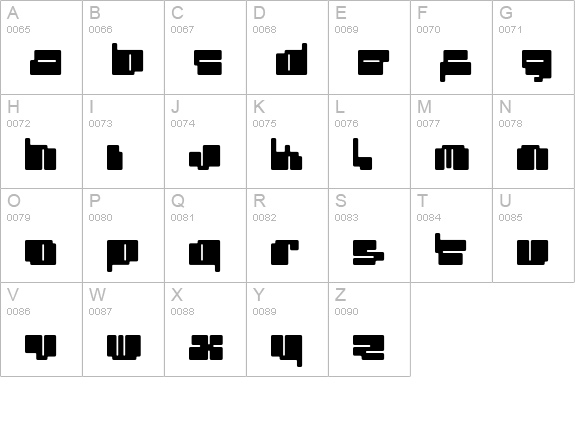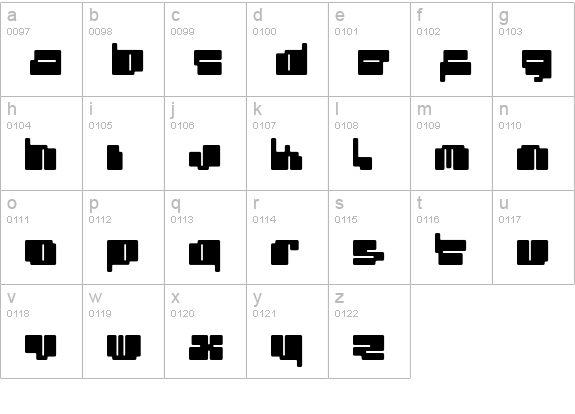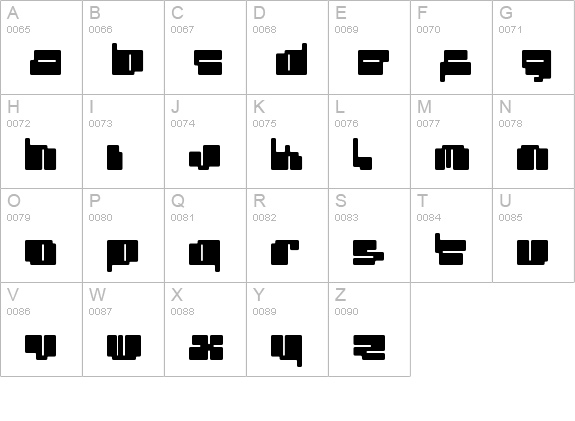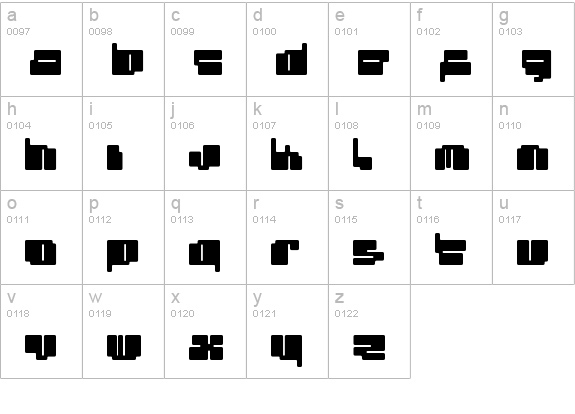
cheaptype Font Details
Introducing CheapType Font, a sleek and modern typeface that is perfect for all your design needs. This versatile font features clean lines and a contemporary style that will make your projects stand out. Whether you are creating posters, logos, or branding materials, CheapType Font is sure to impress. Best of all, CheapType Font is completely free to download at FontsMarket.com. Yes, you read that right - this high-quality font is available for free, making it accessible to everyone looking to elevate their designs without breaking the bank. Don't miss out on the opportunity to enhance your creative projects with this amazing font at no cost. Download CheapType Font today and let your creativity shine!